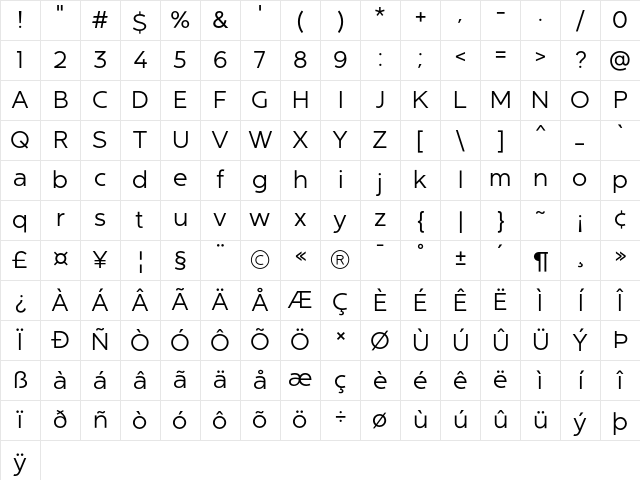
NT Marley Light Free Font
NT Marley Light
Foundry: Artem Nevsky
Designer: Artem Nevsky
Design Context for NT Marley
NT Marley is a composed and adaptable typeface that performs quietly and consistently across a wide range of design contexts. Its slender proportions lend an understated elegance to any composition.